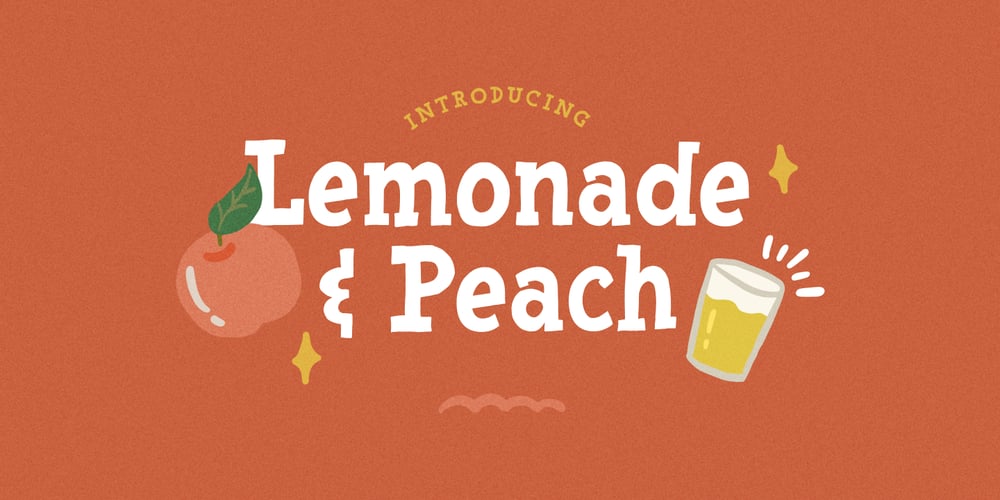
Lemonade Peach
Lemonade Peach font
Lemonade Peach Font Family was designed by Hendry Juanda and published by Letterhend. Lemonade Peach contains 1 styles and family package options. Introducing, Lemonade and Peach, a fresh display typeface. As you can see, this typeface has playful and fun look which is perfectly made to be applied especially in storybook cover, comics, cartoon characters, kids theme design, etc.Features : uppercase & lowercase numbers and punctuation multilingual alternates PUA encoded We highly recommend using a program that supports OpenType features and Glyphs panels like many of Adobe apps and Corel Draw, so you can see and access all Glyph variations.